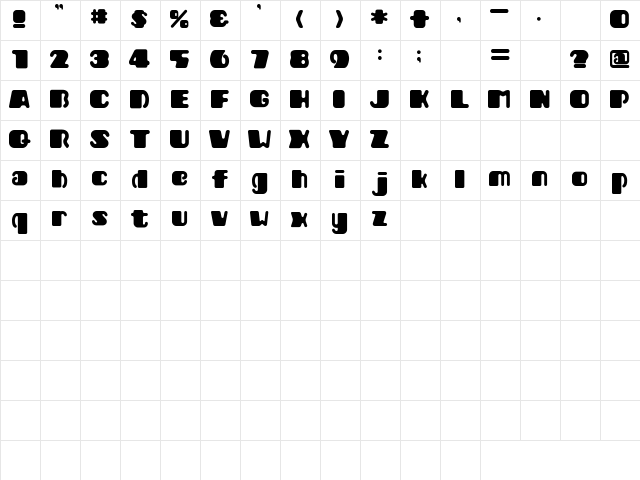
Birthday Regular
Birthday Family
Birthday Regular
Design Context for Birthday
Birthday is a composed and adaptable typeface that performs quietly and consistently across a wide range of design contexts.